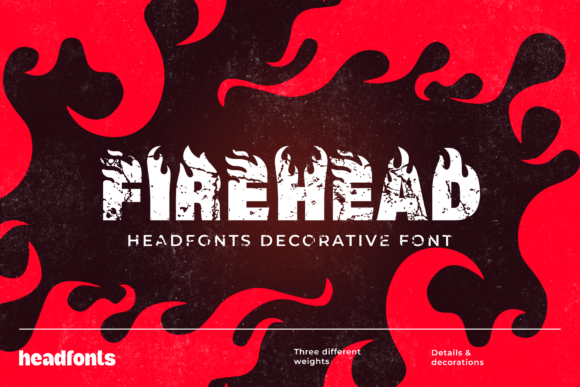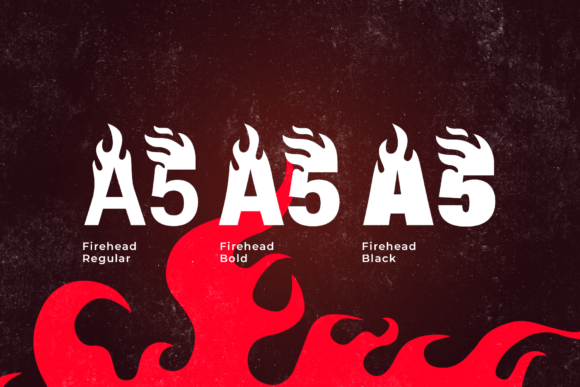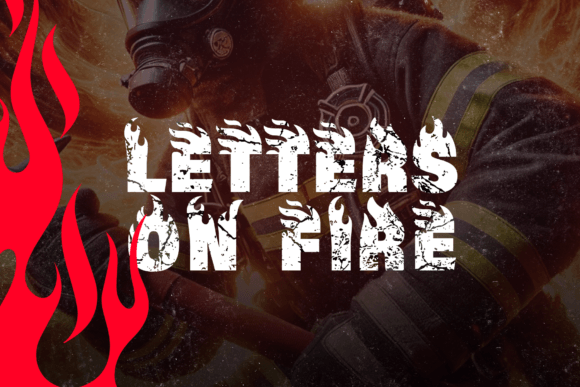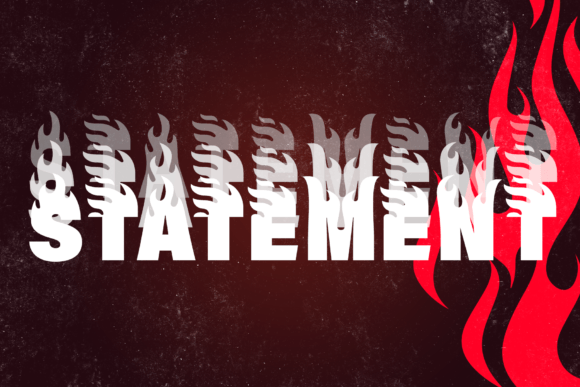
Firehead Font: A Fiery Decorative Display Font for Bold Headlines!
About the Firehead Font
Crafted with precision, the Firehead Font is ready to bring your ideas to life. Introducing Firehead, a unique sans-serif font designed to set your designs on fire. Featuring regular, bold, and black weights, each uppercase letter of this decorative typeface is crowned with flames, perfect for adding a dramatic flair to titles, logos, Halloween posters, and any graphic that needs a fiery touch. Firehead is your go-to font for creating bold, eye-catching visuals.
Light up your next project with the burning intensity of Firehead!
Firehead’s bold, dramatic style is ideally suited for headlines, logos, and short impactful phrases in branding materials and posters. Its decorative nature makes it perfect for projects needing a strong visual punch, such as event promotions or limited-edition product packaging. However, its low x-height and decorative elements make it unsuitable for body text or UI applications requiring high readability.
For optimal visual harmony, pair Firehead with a clean sans-serif like Open Sans for body copy, providing a strong contrast in style and ensuring legibility. Alternatively, a classic serif like Garamond can add a touch of sophistication and counter Firehead’s aggressive energy, creating a balance between boldness and refinement. Avoid pairing it with other highly decorative typefaces, as this will overwhelm the design.
Firehead projects a bold, rebellious, and slightly aggressive personality. Brands targeting younger demographics or those with a fierce, edgy image will find this font particularly effective in conveying their brand identity.
Firehead Font Usage Examples
Firehead Font Example